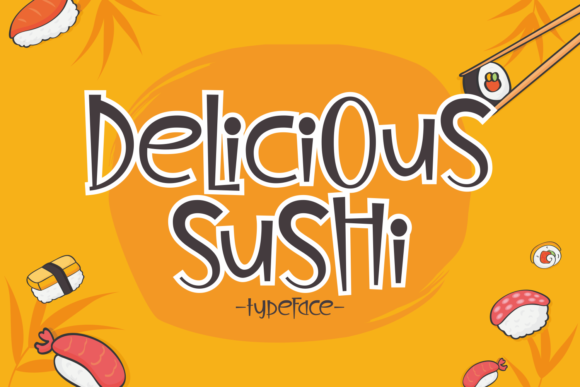
In the realm of visual artistry, the Delicious Sushi font stands as a testament to the power of creativity. This display font defies the boundaries of ordinary typography, transporting you to a world of gastronomic delight and visual splendor.
Crafted by the artisans at Creative Fabrica Fonts, Delicious Sushi is a culinary masterpiece that goes beyond mere words. Its thin, tall characters, adorned with sharp, elegant designs, dance across the page like delectable morsels, inviting your imagination to savor every detail.
Indulge in the artistry of Delicious Sushi and awaken your senses to a symphony of flavors. Whether you're crafting food and drinks menus, designing eye-catching posters, or seeking inspiration for your next quote, this font is your perfect ingredient.
Immerse yourself in the world of Delicious Sushi and let your creativity run wild. Elevate your branding and logos to new heights, turning them into works of art that leave a lasting impression. This font is not just a collection of letters; it's a culinary adventure waiting to be explored.